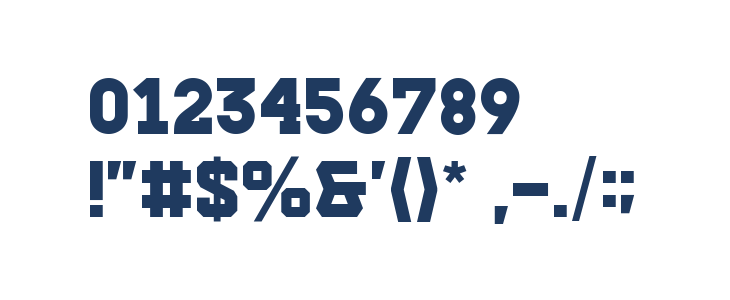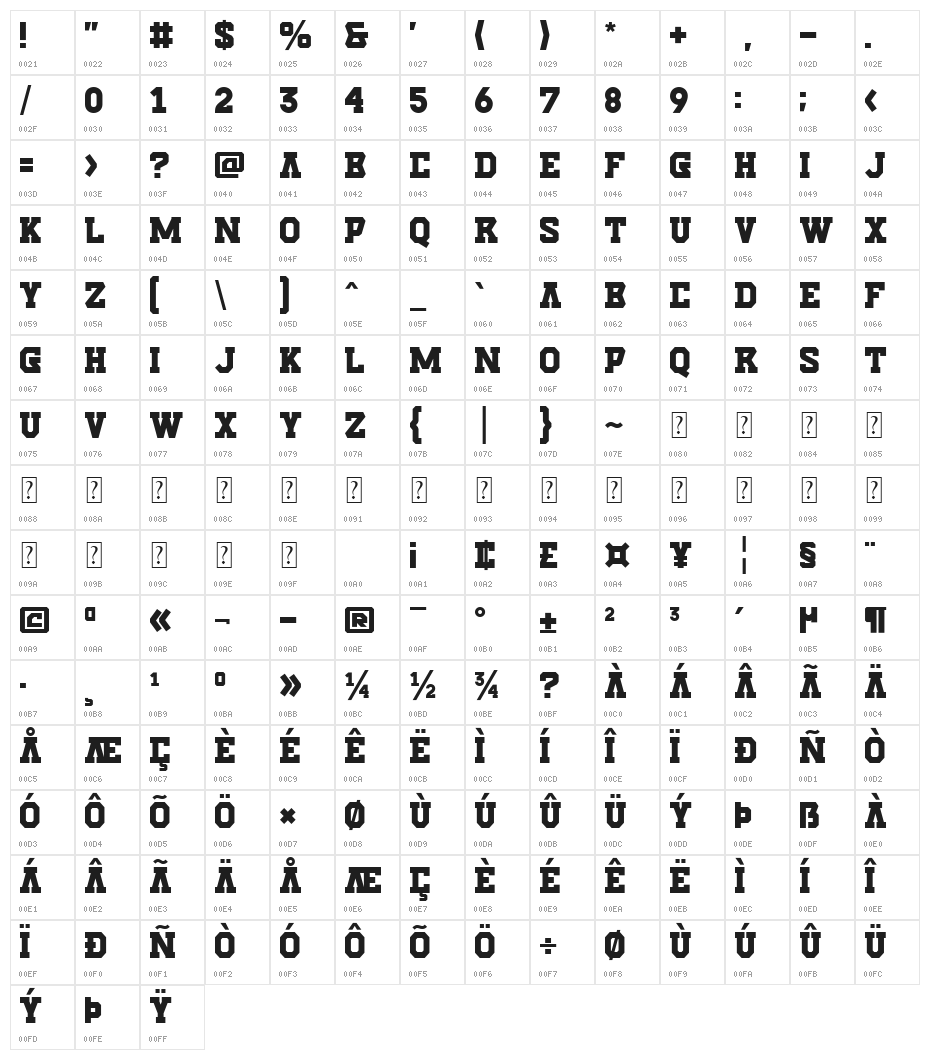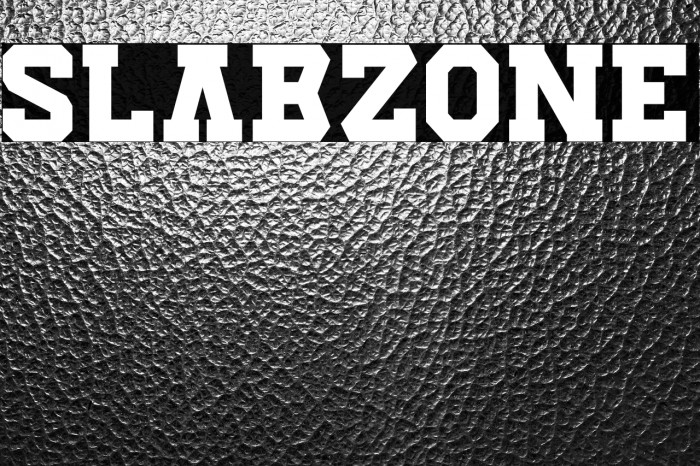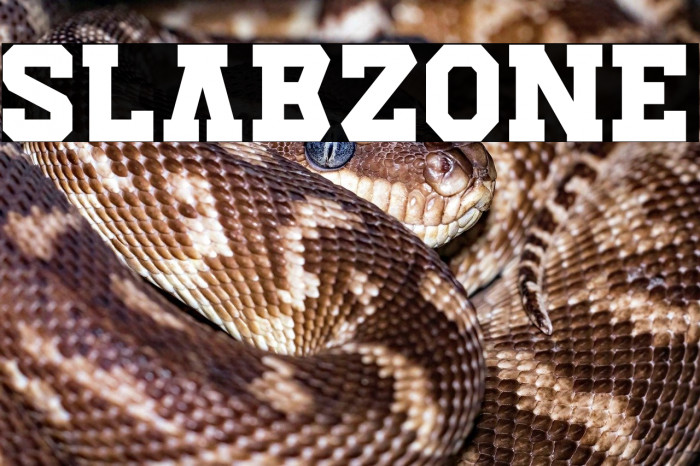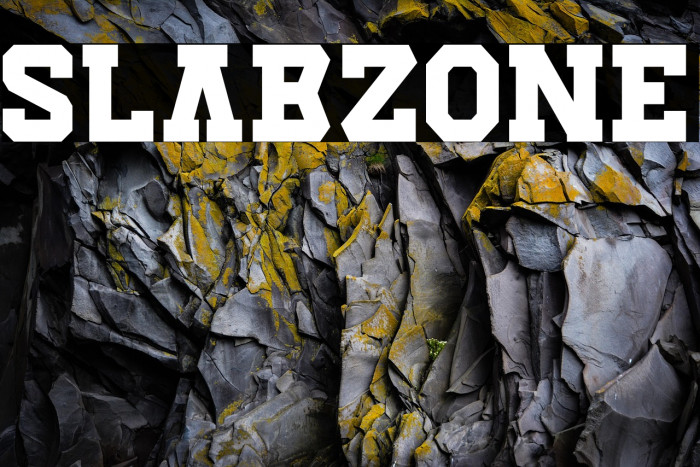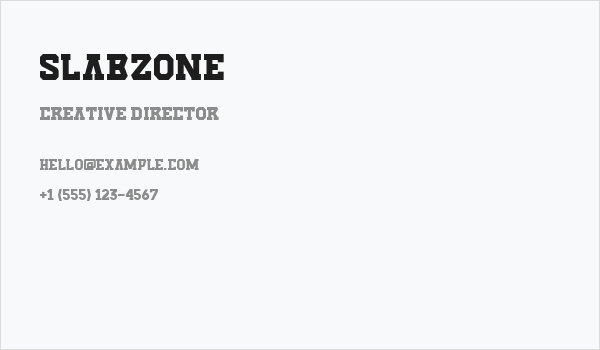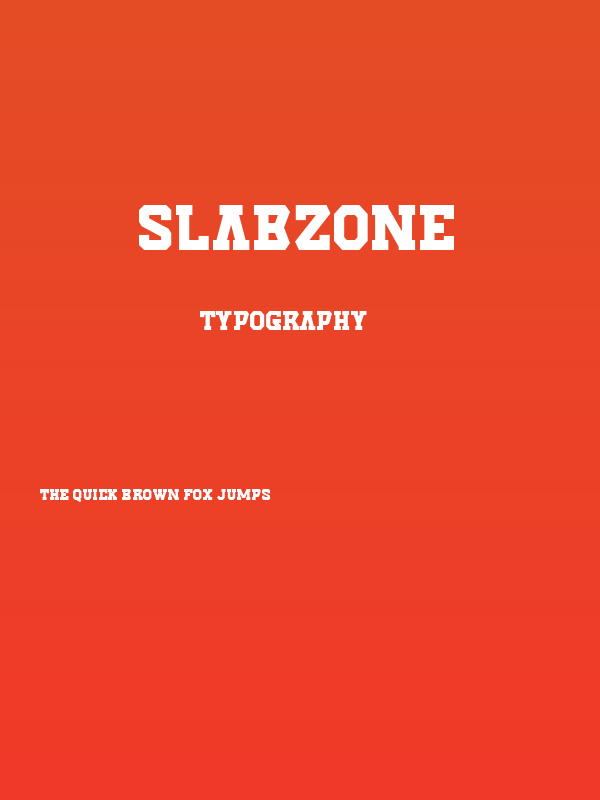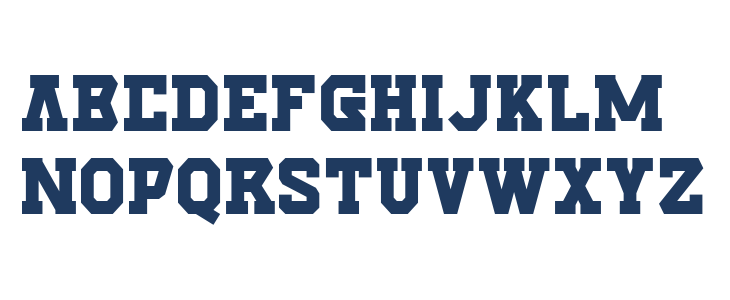
Slabzone Font
Slabzone Description
This font features a bold and robust slab serif style, characterized by thick, block-like serifs and a strong, commanding presence. The uppercase letters are uniform in height, with a consistent stroke width that gives the typeface a solid and stable appearance. The numerals are equally bold, maintaining the same weight and style as the letters, ensuring a cohesive look across all characters. Special characters are designed with the same attention to detail, offering a complete and versatile character set. This font's design is ideal for making a strong visual impact, suitable for headlines and display purposes.
| Proposed Projects | Ideal for branding, posters, headlines, and any project requiring a bold, impactful typeface. |